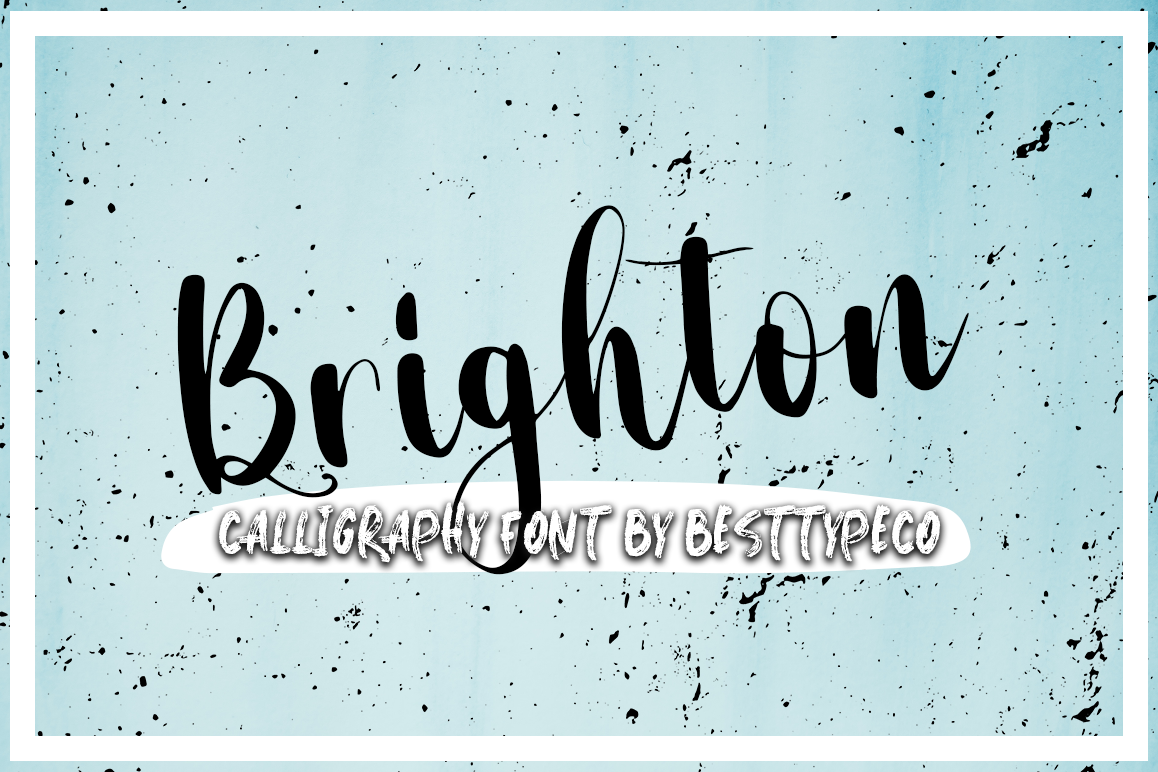
The Brighton - a new Stylish handmade calligraphy font.Very suitable for greeting cards, branding materials, business cards, quotes, posters, and more!This font are perfect for wedding postcard. Or you can create perfect and unique design of your logo, blog, stationery, marketing, magazines and more :)ZIP INCLUDED: